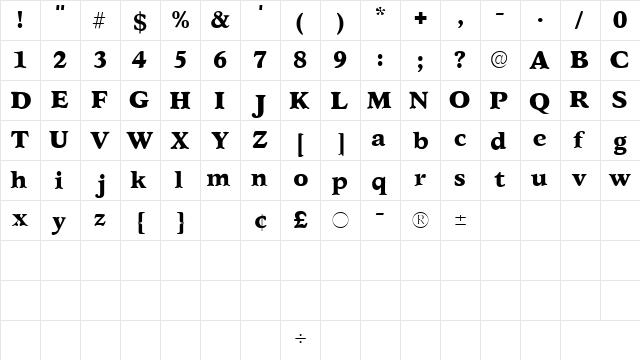
GrafeSSK Regular
Design Context for GrafeSSK Typeface
GrafeSSK is a composed and adaptable typeface that performs quietly and consistently across a wide range of design contexts.